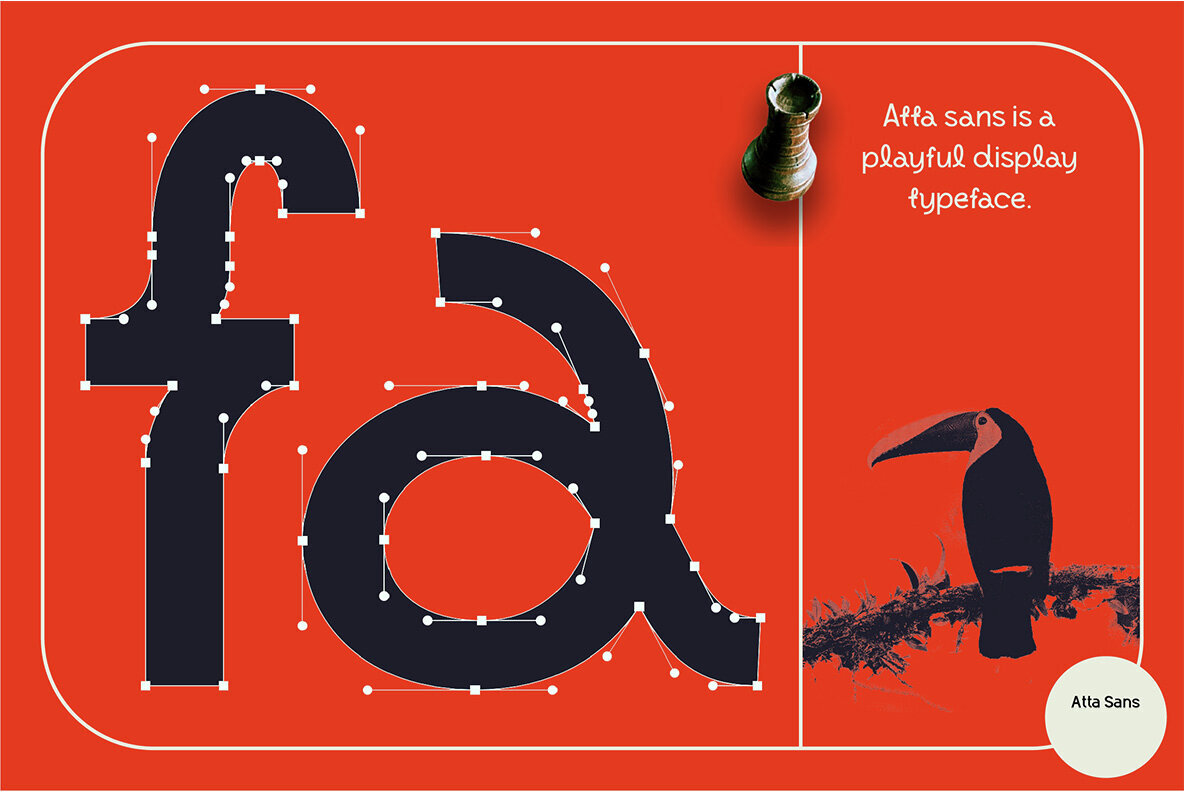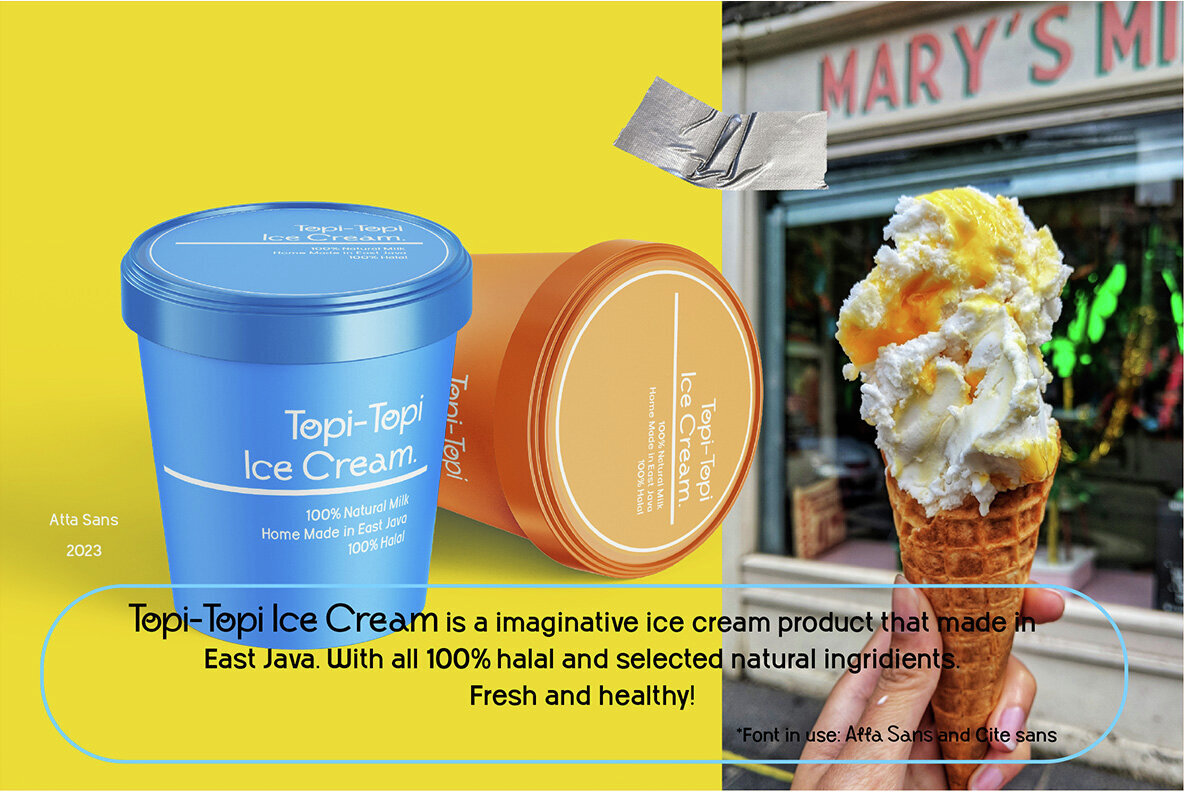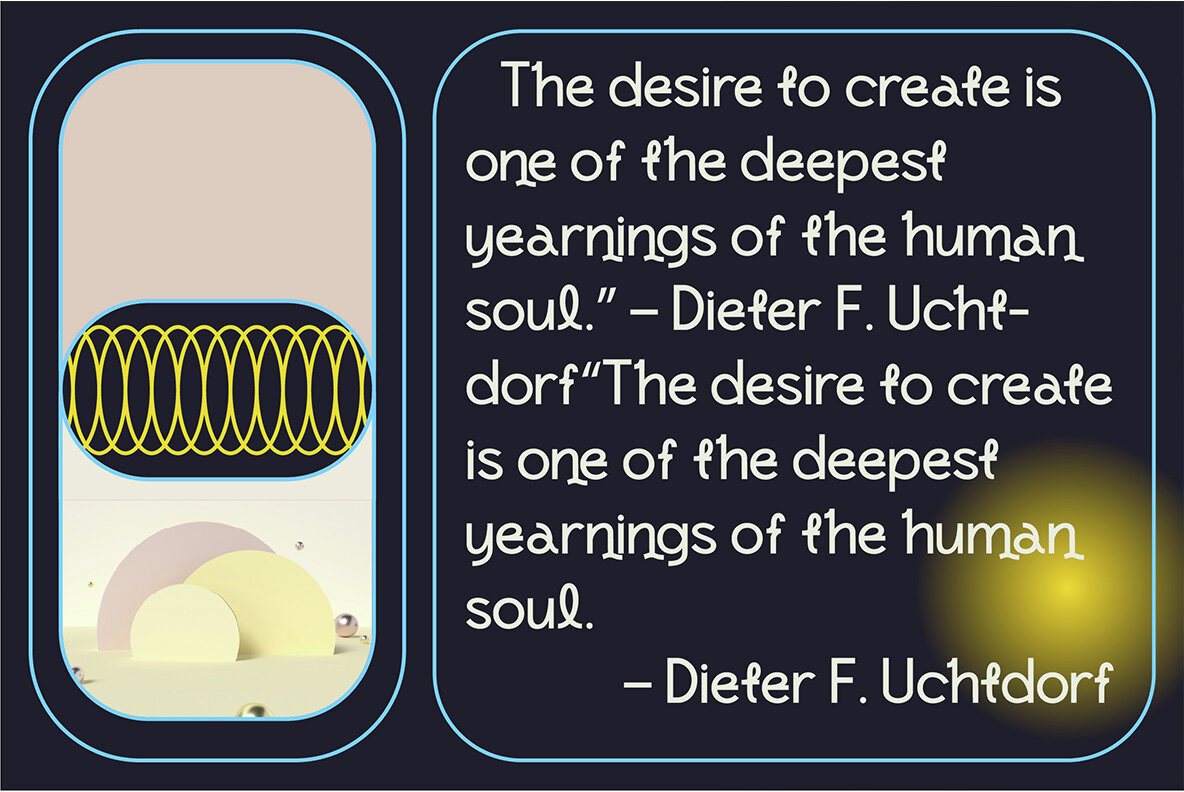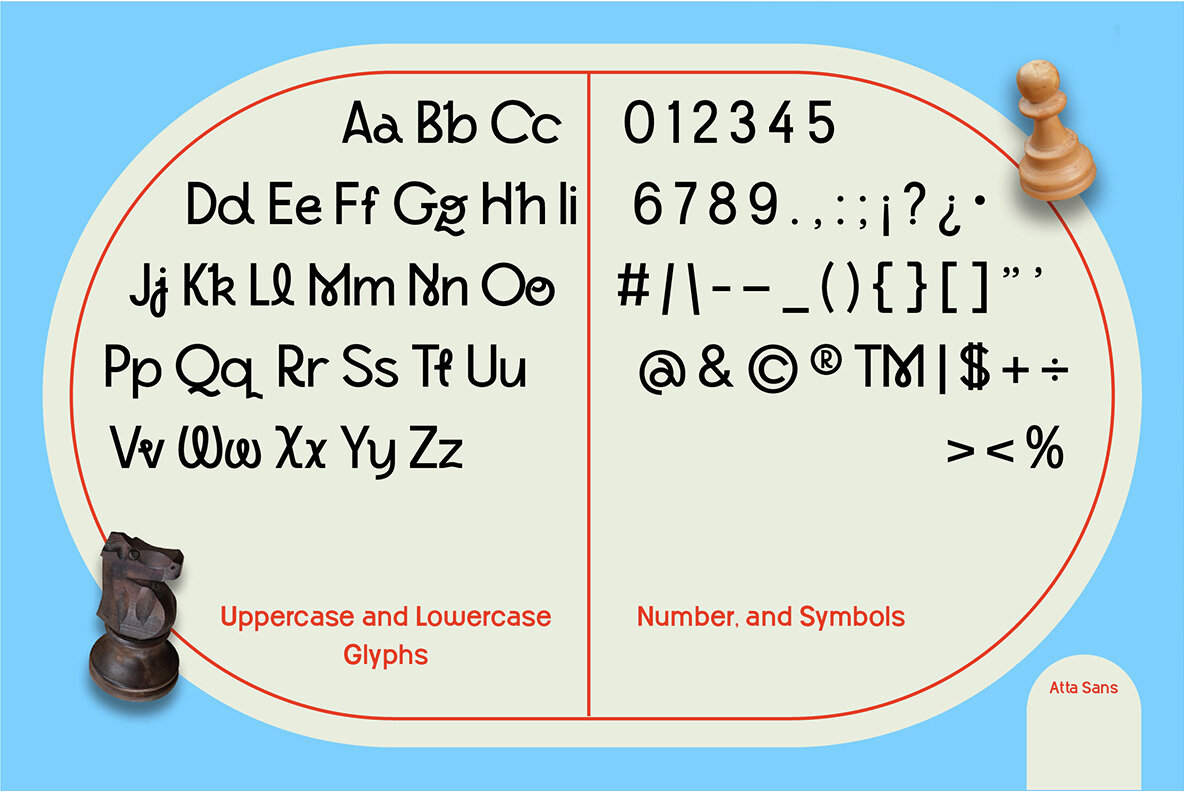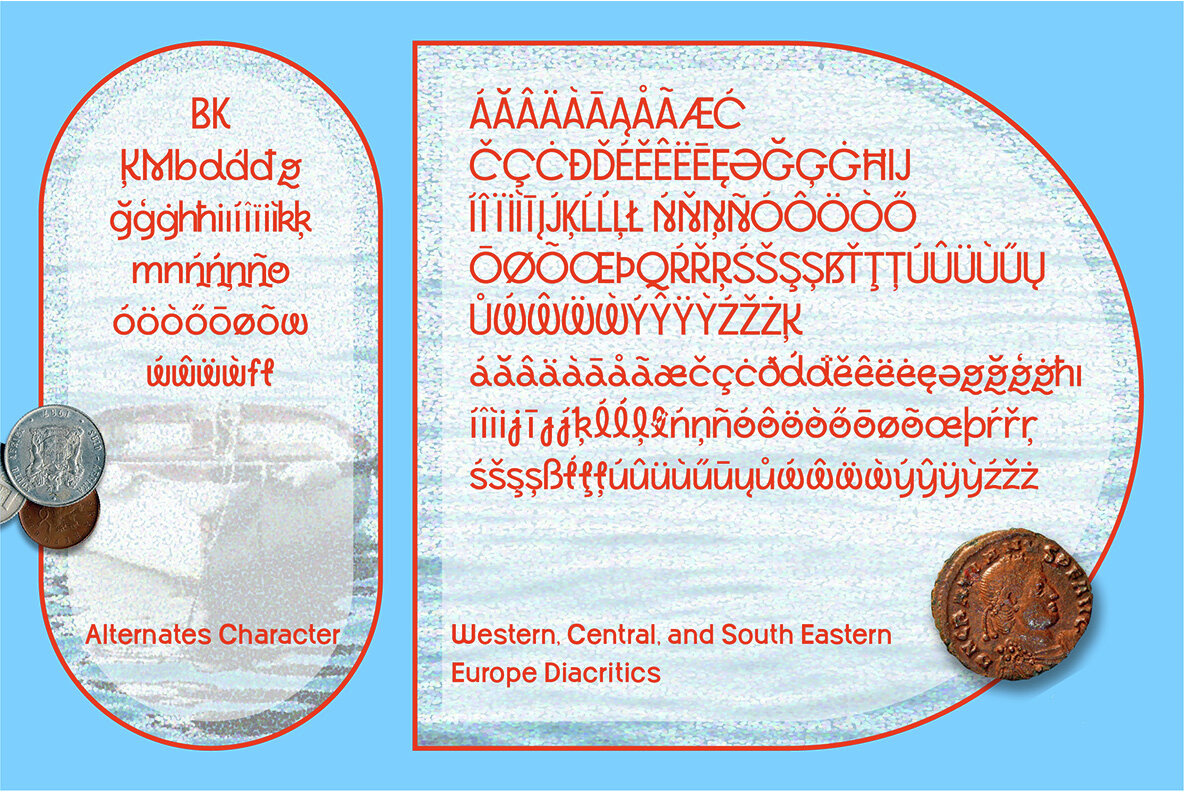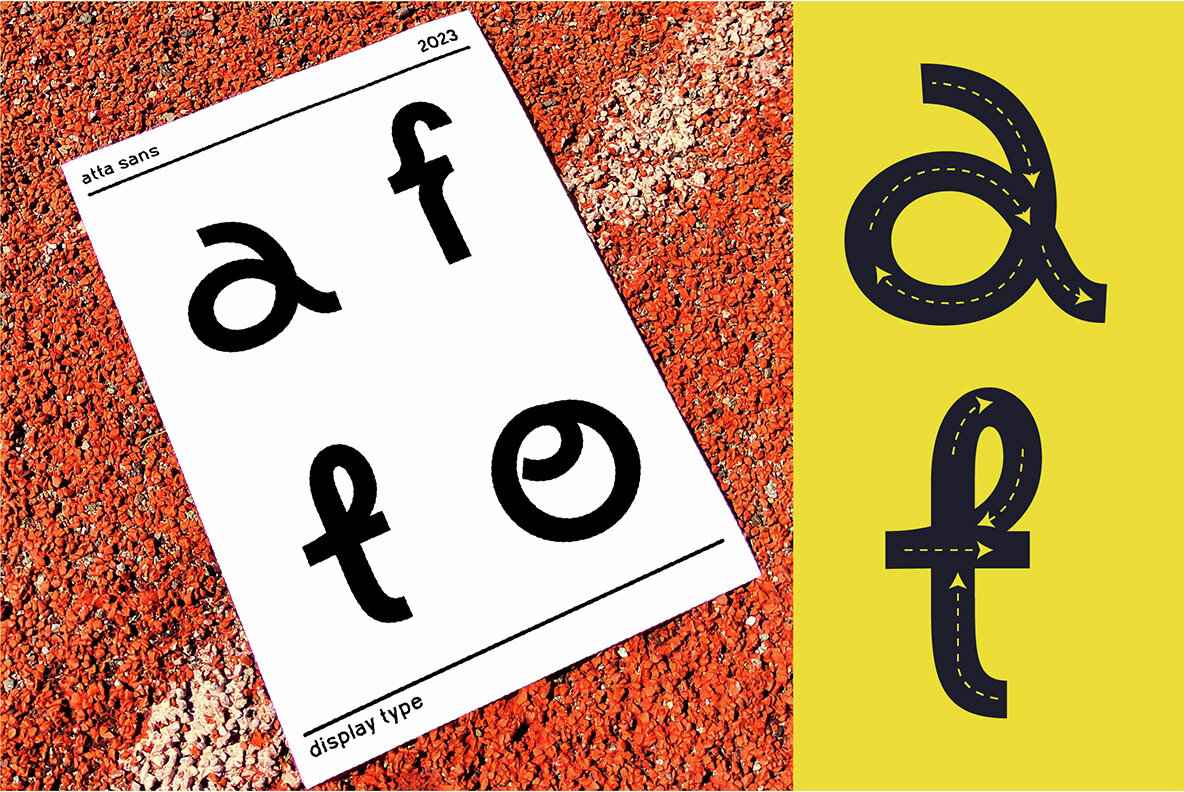
Atta Sans Font
Atta Sans Regular
Atta Sans is a vibrant and dynamic typeface that perfectly embodies a cheerful and playful aesthetic, making it an excellent choice for branding. Its clean lines and balanced proportions ensure legibility while exuding a friendly and approachable vibe. The soft curves contribute to its inviting appearance, making it ideal for brands aiming to convey warmth and creativity. Whether used in logos, marketing materials, or digital interfaces, Atta Sans effortlessly combines modernity with a touch of whimsy, ensuring that any brand message is delivered with both clarity and personality.